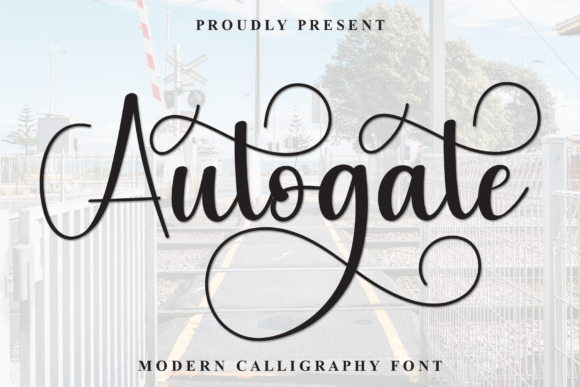
The Autogate Font: A Creative Game-Changer for Designers and Crafters
Have you ever been in the middle of a design project, and suddenly, you’re stuck on finding the perfect font? I recall a particularly frustrating experience while working on a wedding invitation project. My client wanted a unique, elegant look that would make their special day even more memorable. After scouring the internet for hours, I stumbled upon the Autogate Font, which turned out to be a total game-changer. In this article, I’ll share my experience with this incredible font, its features, and how you can make the most of it in your designs.
What Makes Autogate Font Special?
The Autogate Font is a creative product designed to provide an extraordinary experience for designers, crafters, and creative hobbyists. Its latest style letters are perfect for various projects, including wall displays, wedding invitations, social media post logos, advertisements, product packaging, product designs, labels, photography, watermarks, invitations, stationery, and more.
Key Features of Autogate Font
- ✨ Unique and stylish letters: The Autogate Font has a distinctive look that can elevate any design project.
- 🤔 Limited language support: The Autogate Font may not support all languages, which could be a limitation for some users.
- Explore the various glyphs and features, such as Stylistic Alternates and Ligatures, to add a unique touch to your designs.
The Designer Inspiration Behind Autogate Font
The Autogate Font was designed with the goal of creating a unique and stylish font that would inspire creativity and elegance in design projects. The designer aimed to craft a font that would be perfect for special occasions, such as weddings and events, while also being versatile enough for everyday design use.